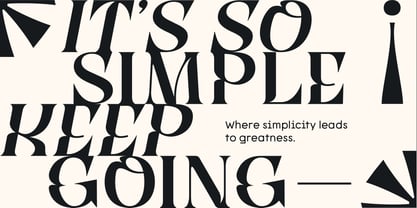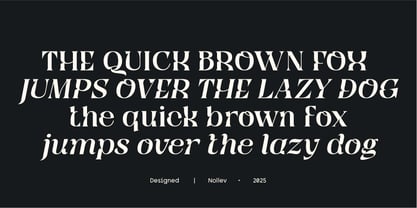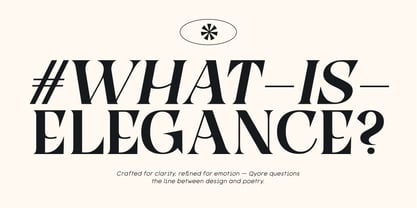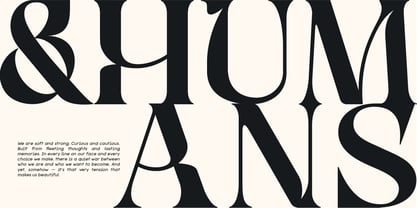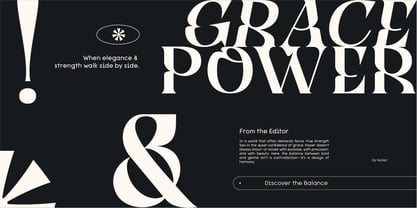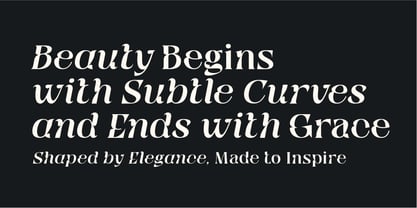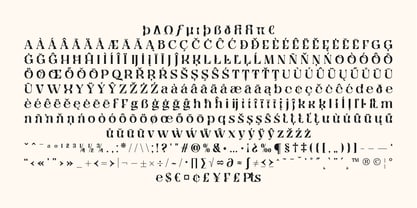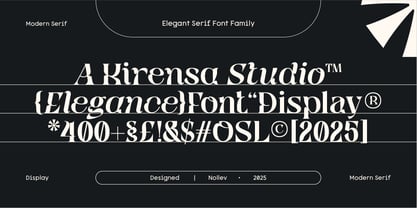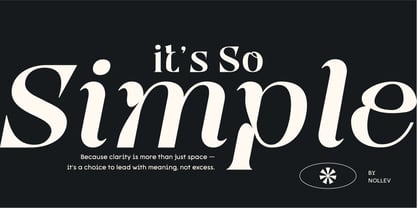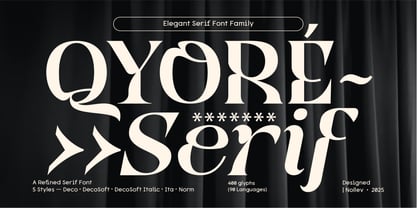
Qyore Serif Display
The Qyore Serif Display Font Family was designed by Akhmad Hidayat and published by Nollev. Qyore Serif Display contains 2 styles and family package options. More about this family
Qyore Serif Display is a modern high-contrast serif typeface that combines timeless elegance with a bold, contemporary touch. Crafted for designers who aim to make a strong visual impression, Qyore Serif Display is ideal for premium branding, editorial design, packaging, and sophisticated display use.
Key Features:
• 2 Styles – Regular and Italic, designed for versatile display use
• 400+ Glyphs – Includes stylistic alternates, punctuation, symbols, and more
• Multilingual Support – Covers 90+ languages, including Western, Central, and Eastern European sets
• Modern High-Contrast Serif – Perfect for luxury headlines, magazine layouts, logos, and visual identities
• Extended Latin Support – Fully equipped for international use and global brands
Qyore Serif Display offers the sophistication of a classic serif with the edge of modern design — a perfect balance of elegance and boldness.